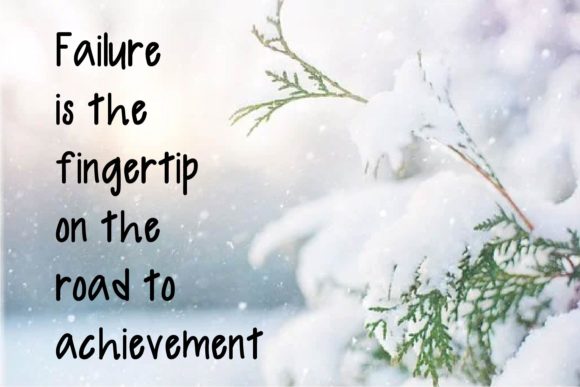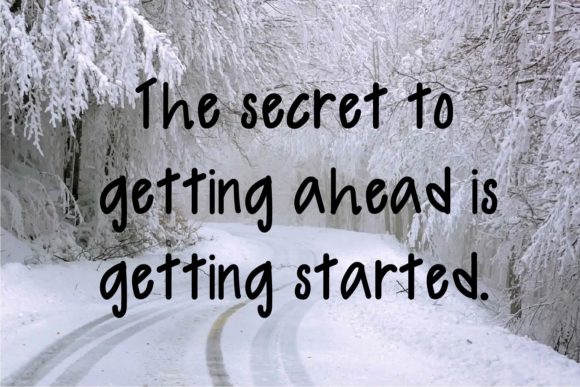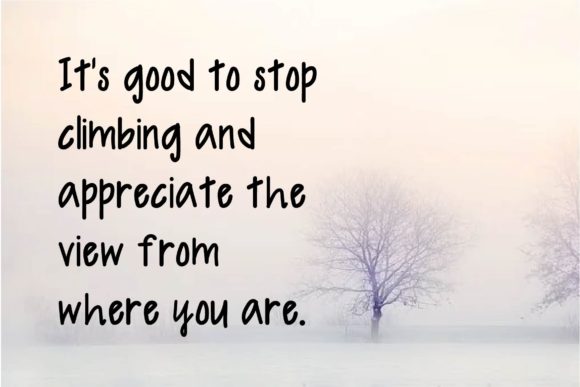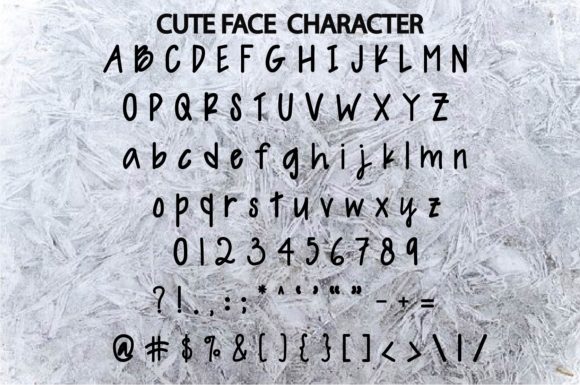
Cute Face Font: The Playful and Versatile Typeface for Creative Projects
Are you on the hunt for a font that adds a touch of playfulness and whimsy to your creative projects? Look no further than Cute Face, a delightful handwritten font that’s perfect for designers, crafters, and DIY enthusiasts. With its casual and carefree vibe, Cute Face is sure to elevate your designs and turn them into true works of art.
What Makes Cute Face So Special?
Cute Face is a one-of-a-kind font that’s designed to bring a smile to your face. Its playful and handwritten style makes it perfect for a wide range of creative projects, from social media graphics and posters to logos, headings, and even calligraphy scripts. Whether you’re looking to add some personality to your Instagram feed or create eye-catching signage, Cute Face is the perfect choice.
Endless Possibilities with Cute Face
One of the best things about Cute Face is its incredible versatility. This font can be used in a multitude of contexts, including:
- Logos: Add a touch of whimsy to your brand’s logo and make it stand out from the crowd.
- Headings: Use Cute Face to create eye-catching headings that draw attention and add visual interest.
- T-shirts: Create custom apparel that’s both fun and stylish with Cute Face.
- Letterhead: Add a personal touch to your correspondence with Cute Face.
- Signage: Make your signs and displays stand out with this playful font.
- Labels: Use Cute Face to create custom labels that add a touch of personality to your products.
- News: Add a touch of whimsy to your news articles and blog posts.
- Posters: Create eye-catching posters that showcase your creative vision.
- Badges: Design custom badges that are both fun and functional.
Why Designers and Crafters Love Cute Face
Cute Face has quickly become a favorite among designers and crafters, and it’s easy to see why. This font offers:
- Ease of use: Cute Face is incredibly easy to use, even for those who are new to design.
- High versatility: This font can be used in a wide range of creative projects.
- Unique style: Cute Face has a one-of-a-kind style that’s sure to make your designs stand out.
- Playful vibe: This font adds a touch of playfulness and whimsy to any design.
Tips for Using Cute Face in Your Designs
To get the most out of Cute Face, here are a few tips to keep in mind:
- Experiment with colors: Cute Face looks great in a variety of colors, so don’t be afraid to get creative.
- Mix and match: Combine Cute Face with other fonts to create unique and visually interesting designs.
- Play with textures: Add texture to your designs by incorporating patterns, gradients, and other visual elements.
- Keep it simple: Don’t be afraid to keep things simple and let Cute Face be the star of the show.
Cute Face is a playful and versatile font that’s perfect for designers, crafters, and DIY enthusiasts. With its unique style, ease of use, and high versatility, this font is sure to become a favorite in your creative toolkit. Whether you’re looking to add some whimsy to your social media graphics or create eye-catching signage, Cute Face is the perfect choice. So why wait? Download Cute Face today and start turning your creative ideas into true works of art!